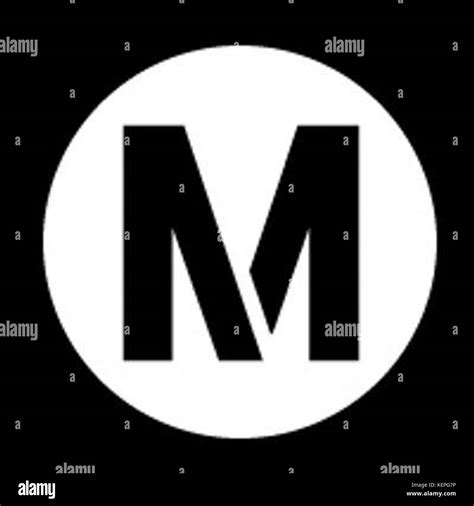
In the realm of graphic design and branding, the Lacmta Logo Font stands out as a distinctive and recognizable element. The Los Angeles County Metropolitan Transportation Authority (LACMTA) has a logo that is not only visually appealing but also carries a significant amount of brand identity. This logo, with its unique font, has become synonymous with public transportation in the Los Angeles area. Understanding the intricacies of the Lacmta Logo Font can provide valuable insights into effective branding and design.
The History and Evolution of the Lacmta Logo
The Lacmta Logo Font has undergone several transformations over the years, reflecting the evolution of the organization itself. The original logo, designed in the early days of the LACMTA, featured a more traditional and straightforward design. Over time, as the organization grew and its services expanded, the logo was updated to better represent its modern identity.
The current Lacmta Logo Font is characterized by its clean, modern lines and a color scheme that is both vibrant and professional. The font used in the logo is a custom typeface that has been carefully crafted to convey a sense of reliability and efficiency. This font is not just a design element; it is a crucial part of the brand's visual identity.
Key Features of the Lacmta Logo Font
The Lacmta Logo Font has several key features that make it stand out:
- Modern Design: The font is sleek and modern, reflecting the contemporary nature of the LACMTA's services.
- Readability: Despite its modern design, the font is highly readable, ensuring that it can be easily understood by passengers and commuters.
- Versatility: The font can be used in a variety of contexts, from signage and advertisements to digital platforms and print materials.
- Brand Consistency: The font is consistent with the overall branding of the LACMTA, reinforcing the organization's identity.
The Importance of Typography in Branding
Typography plays a crucial role in branding, and the Lacmta Logo Font is a prime example of this. The choice of font can significantly impact how a brand is perceived by its audience. A well-designed font can convey professionalism, reliability, and modernity, all of which are essential for a public transportation authority like the LACMTA.
When designing a logo, it is important to consider the following aspects of typography:
- Legibility: The font should be easy to read, even from a distance or in low-light conditions.
- Consistency: The font should be consistent with the overall branding of the organization.
- Versatility: The font should be versatile enough to be used in various contexts and media.
- Uniqueness: The font should be unique and distinctive, setting the brand apart from competitors.
Designing with the Lacmta Logo Font
When designing with the Lacmta Logo Font, it is important to follow certain guidelines to ensure consistency and effectiveness. Here are some tips for using the font in your designs:
- Color Scheme: Use the official color scheme of the LACMTA to maintain brand consistency.
- Size and Spacing: Ensure that the font size and spacing are appropriate for the context in which it is being used.
- Contrast: Use contrasting colors to make the text stand out against the background.
- Alignment: Align the text properly to ensure readability and visual appeal.
Here is an example of how the Lacmta Logo Font can be used in different contexts:
📝 Note: Always refer to the official LACMTA branding guidelines for specific details on font usage.
The Impact of the Lacmta Logo Font on Brand Recognition
The Lacmta Logo Font has had a significant impact on the brand recognition of the LACMTA. The font's distinctive design and consistent use across various platforms have helped to create a strong visual identity for the organization. This, in turn, has enhanced brand recognition and loyalty among passengers and commuters.
Brand recognition is crucial for any organization, and the Lacmta Logo Font plays a key role in this. By using a consistent and recognizable font, the LACMTA has been able to build a strong brand identity that is easily identifiable to its audience. This has helped to establish trust and reliability, which are essential for a public transportation authority.
Case Studies: Successful Use of the Lacmta Logo Font
There are several examples of successful use of the Lacmta Logo Font in various contexts. Here are a few case studies that highlight the effectiveness of the font:
- Signage: The font is used on signage throughout the LACMTA's network, ensuring that passengers can easily navigate the system.
- Advertisements: The font is used in advertisements to promote the LACMTA's services, making the brand easily recognizable.
In conclusion, the Lacmta Logo Font is a crucial element of the LACMTA’s branding strategy. Its distinctive design, readability, and versatility make it an effective tool for enhancing brand recognition and loyalty. By understanding the key features and guidelines for using the font, designers can create effective and consistent branding materials that reinforce the LACMTA’s identity. The font’s impact on brand recognition is evident in its successful use across various platforms, from signage and advertisements to digital platforms. This demonstrates the importance of typography in branding and the role it plays in creating a strong visual identity.